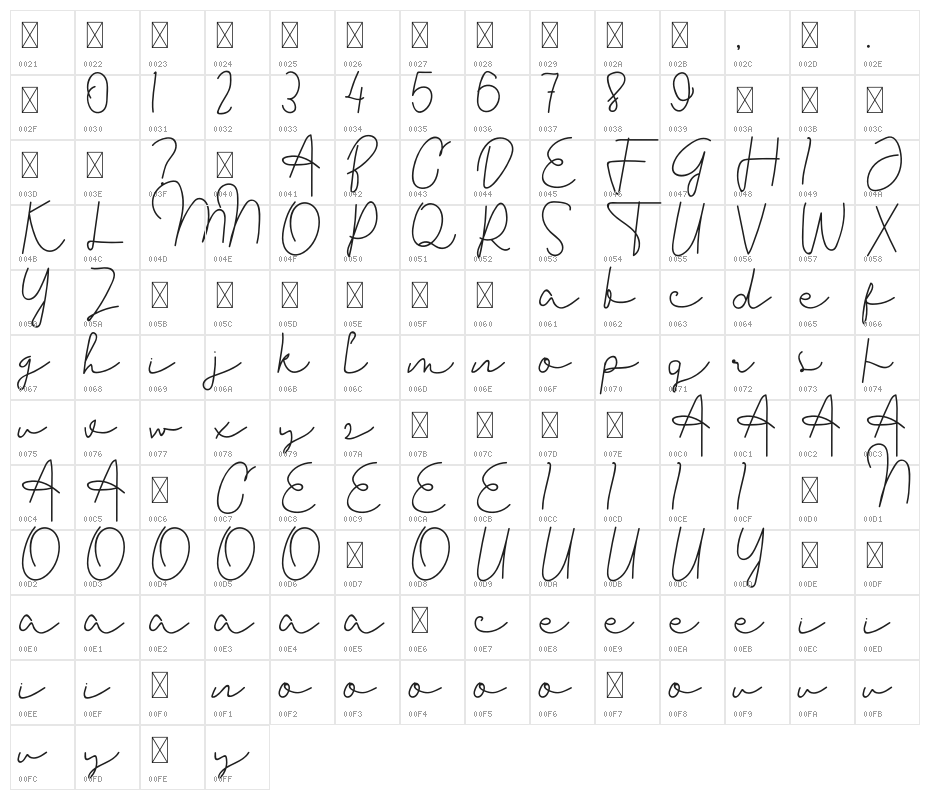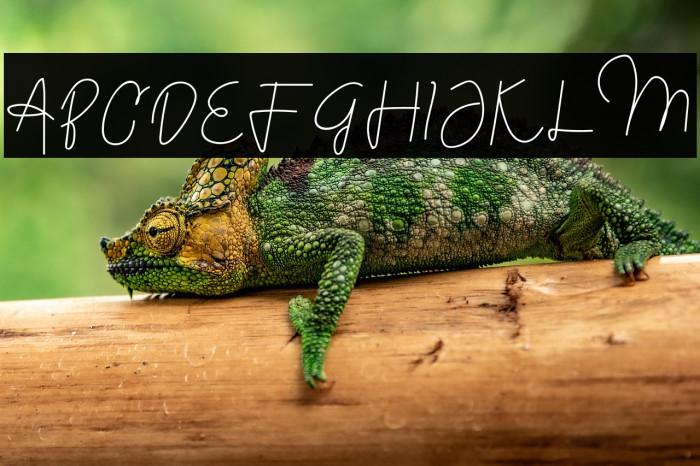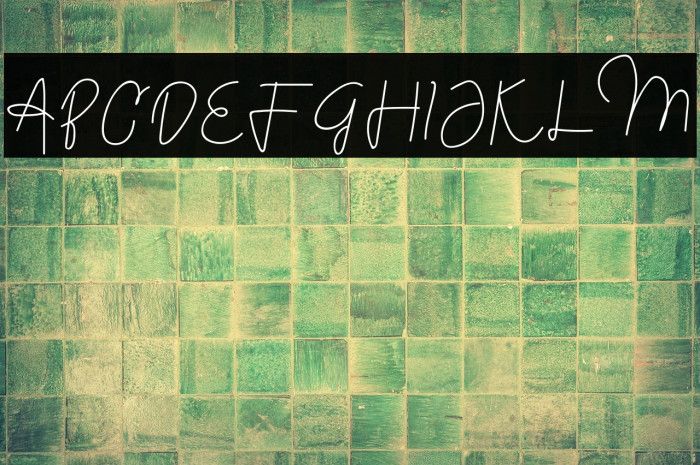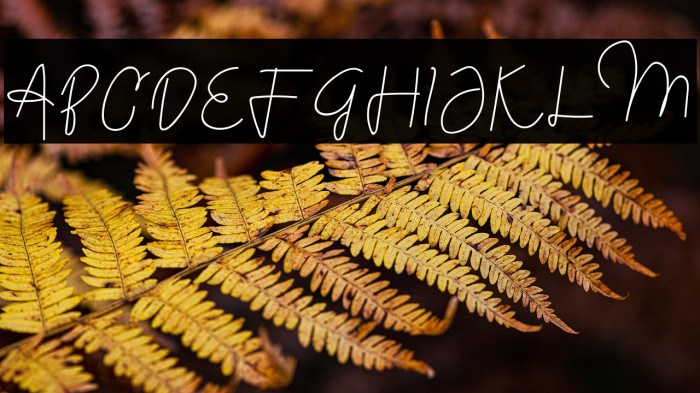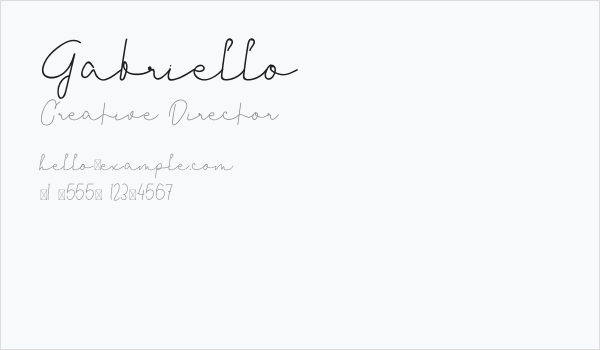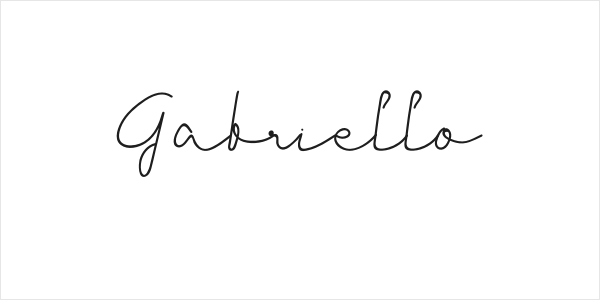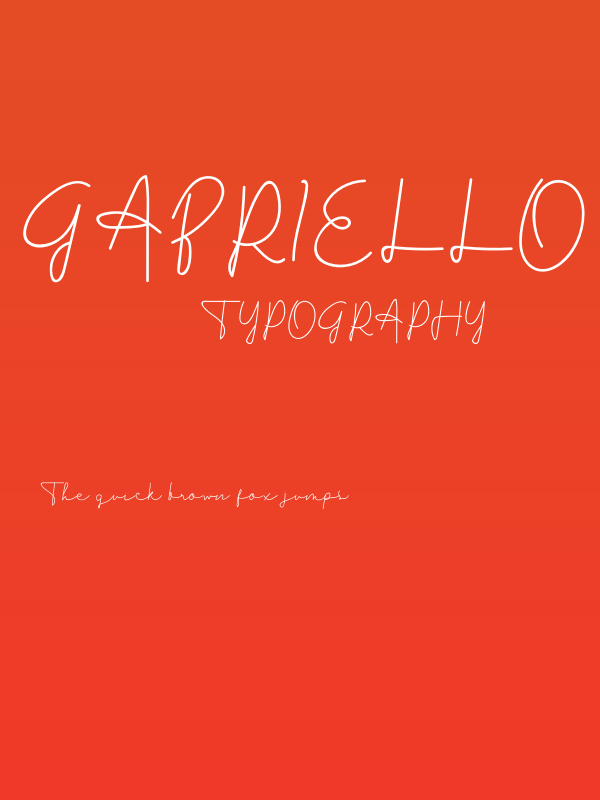
Gabriello Font
Gabriello Description
This font features a delicate and flowing script style that mimics elegant handwriting. The uppercase letters are tall and slightly narrow, with gentle curves and loops that add a touch of sophistication. The lowercase letters maintain a consistent flow, with smooth connections between characters, enhancing the handwritten feel. Numbers are designed with a similar fluidity, ensuring they blend seamlessly with the alphabet. The overall appearance is graceful and refined, making it suitable for projects that require a personal and stylish touch. The special characters retain the same elegant style, ensuring consistency throughout.